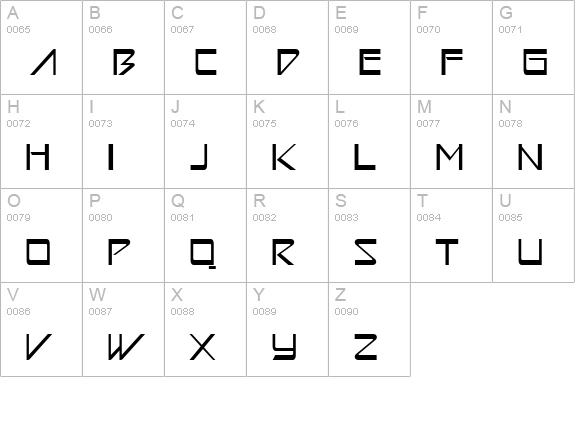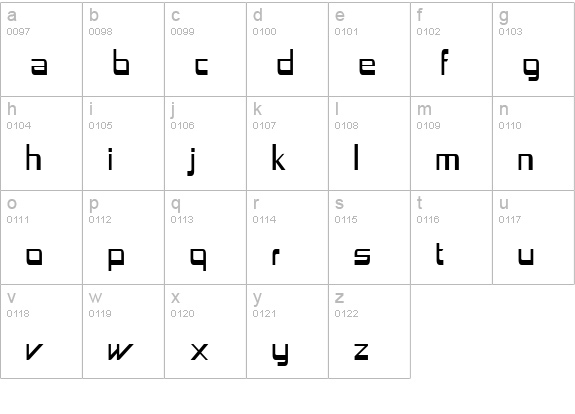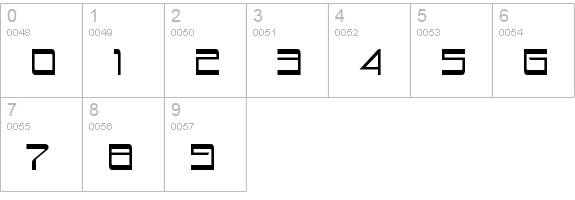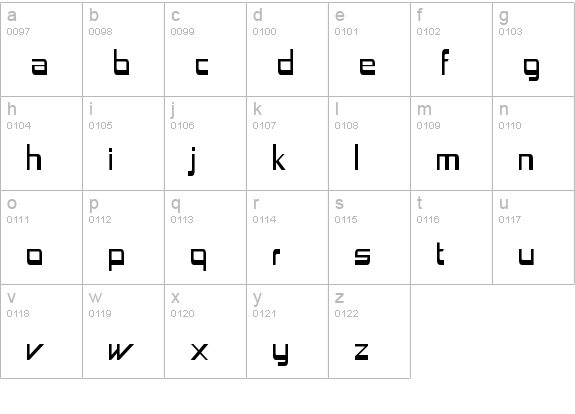
Astron Boy font is a modern and stylish typeface that exudes a futuristic vibe perfect for various design projects. With its sleek lines and geometric shapes, this font is sure to make a statement. The clean and versatile design of Astron Boy font makes it suitable for a wide range of applications, from branding to web design. What's even better is that Astron Boy font is available for free download at FontsMarket.com. You can easily access this unique and eye-catching font to add a touch of sophistication to your projects without any cost. Don't miss out on the opportunity to enhance your designs with the sleek and contemporary look of Astron Boy font - download it for free today!